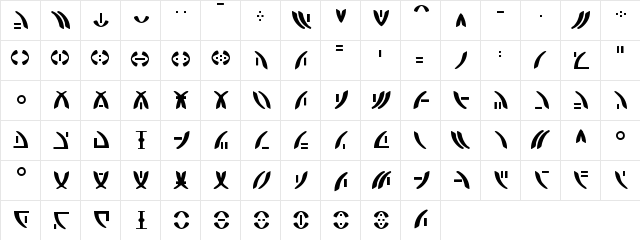
Zeta Reticuli Regular
Design Context for Zeta Reticuli Typeface
Zeta Reticuli is a composed and adaptable typeface that performs quietly and consistently across a wide range of design contexts.